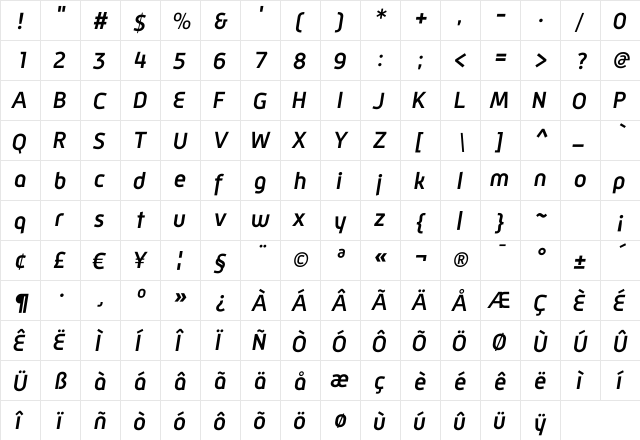
Mic 32Bold Oblique Regular
Design Context for Mic 32Bold Oblique Typeface
Mic 32Bold Oblique is a composed and adaptable typeface that performs quietly and consistently across a wide range of design contexts. The dynamic lean of this cut emphasises speed and emphasis in any layout. Its bold stroke weight gives it real presence on the page.
Pro Tip: Use Mic 32Bold Oblique for emphasis, pull quotes, and subheadings where its slanted energy can add rhythm to the layout.